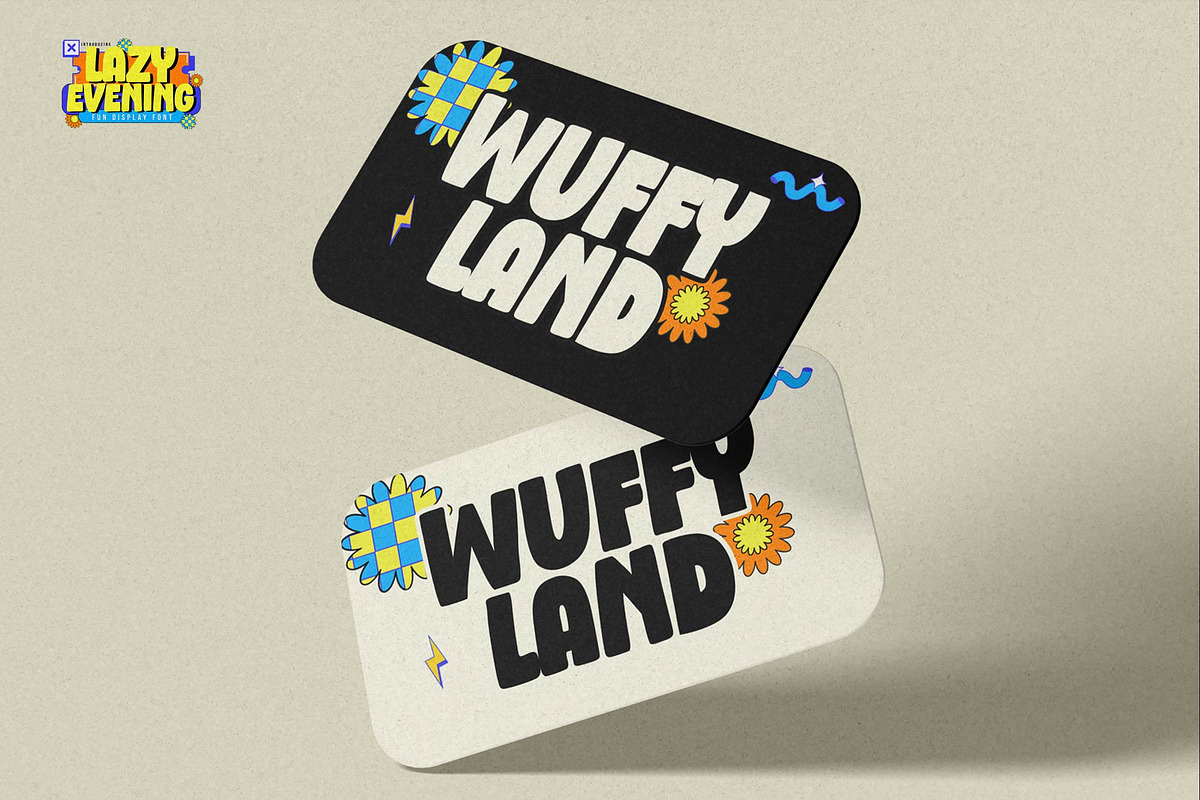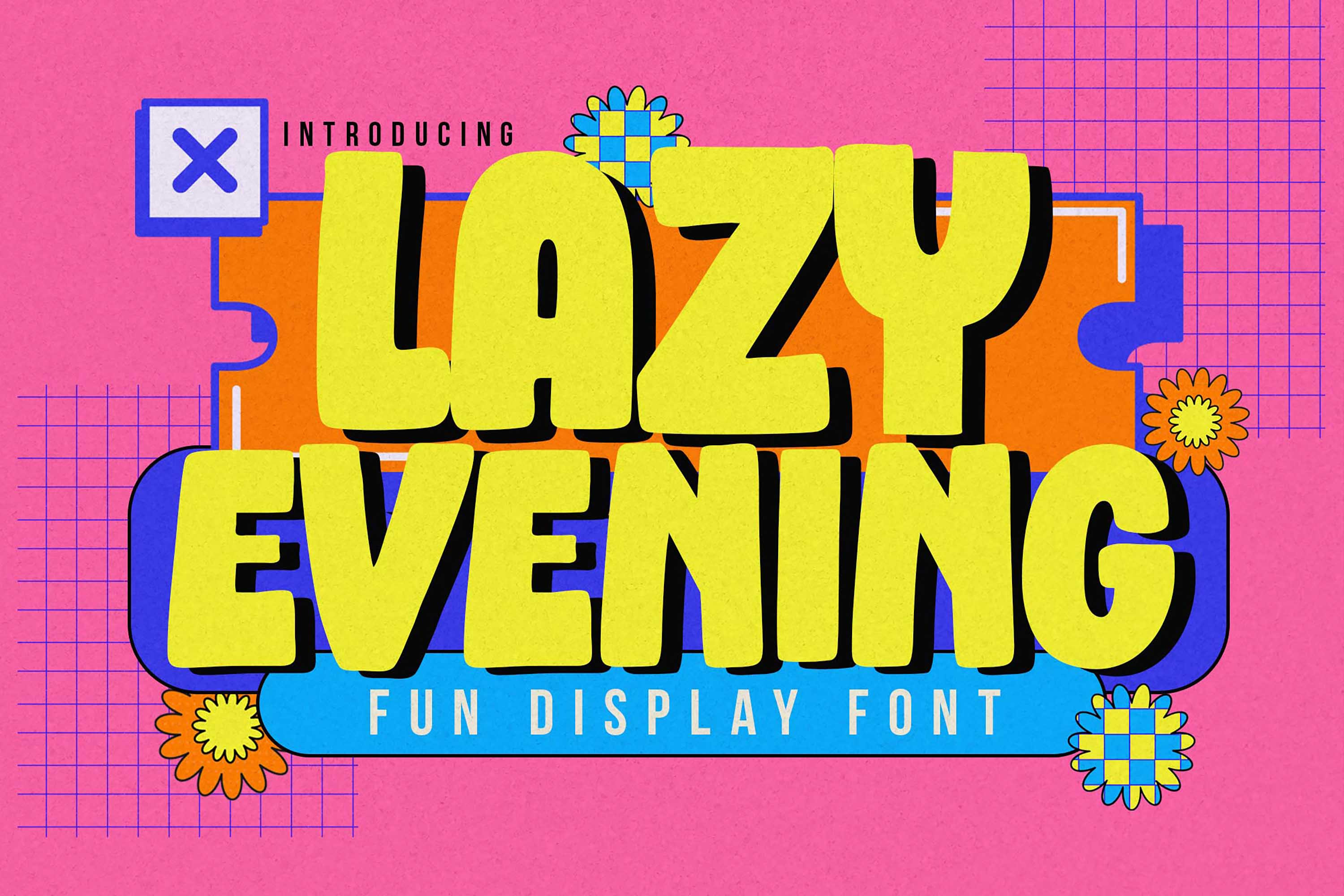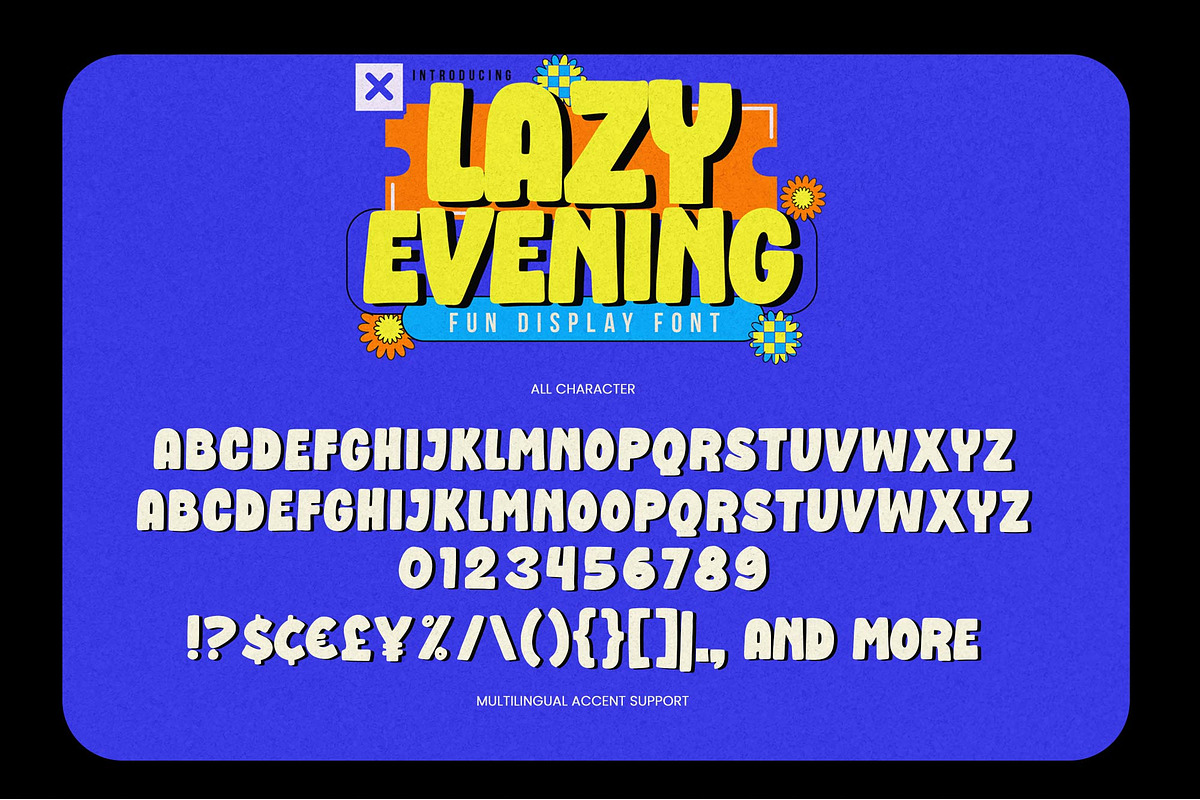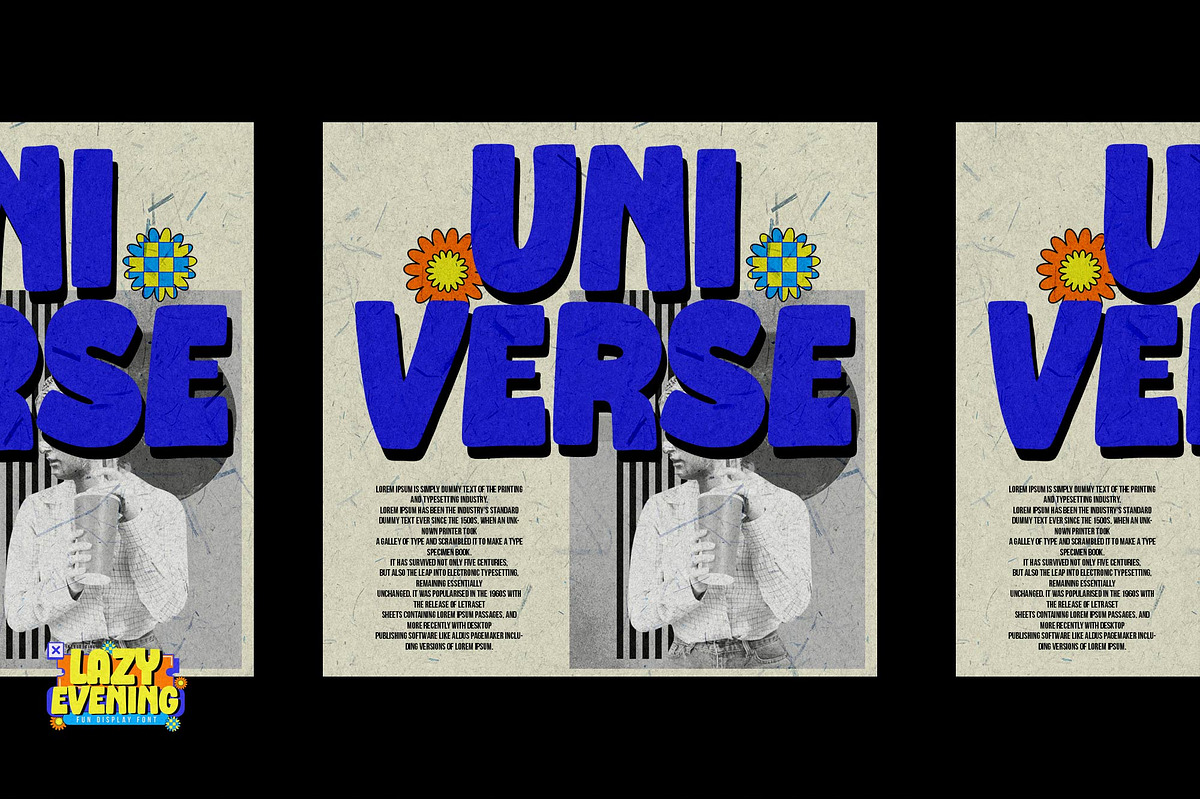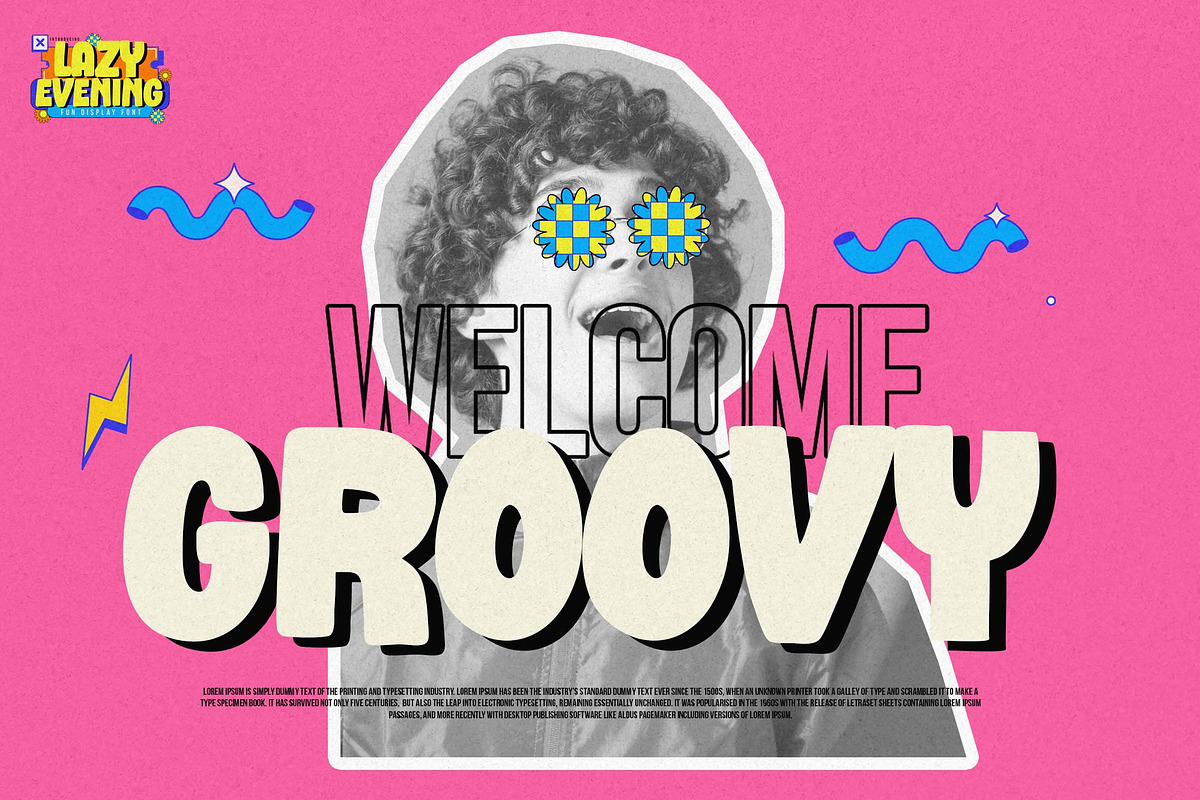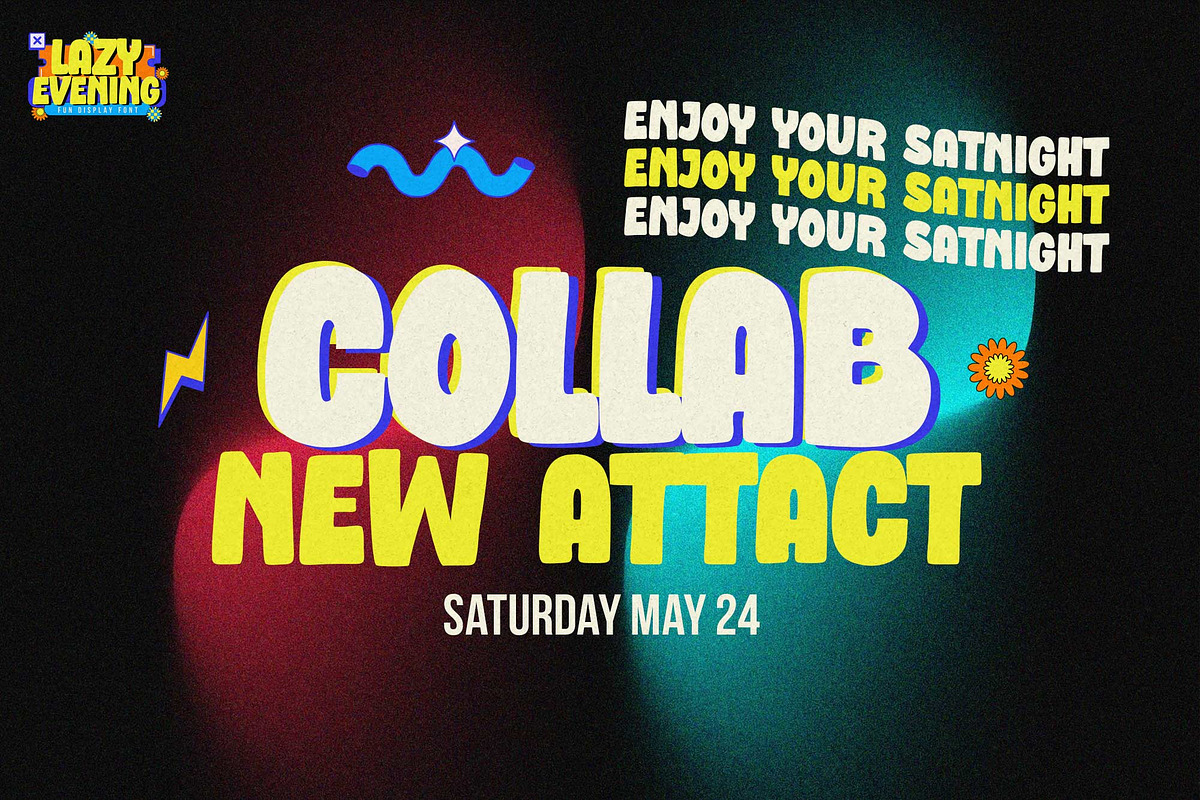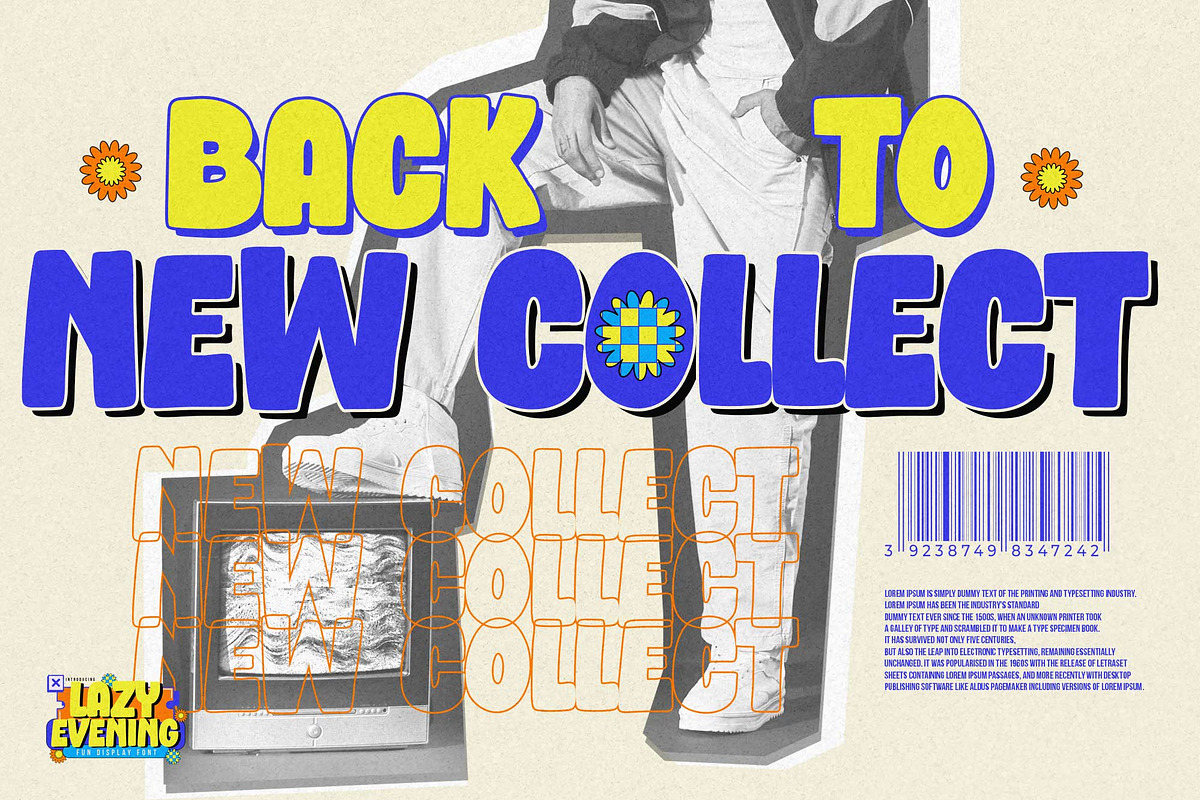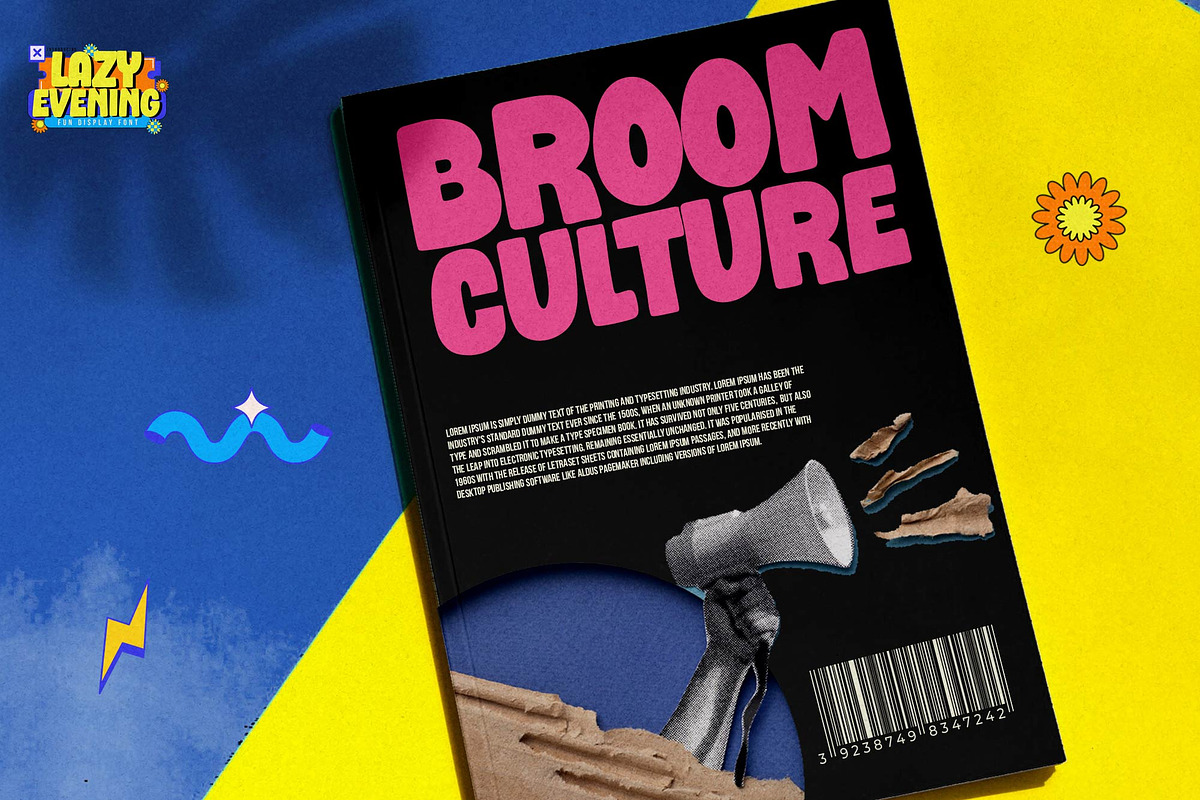
Lazy Evening - Fun Display Font
Hello Everyone, introduce our new product Font Lazy Evening This Is Fun Display Font.This is a Textured Natural Style and Fun style with a clear style. This font Lazy Evening is great for your next creative project such as logos, printed quotes, invitations, cards, product packaging, headers, Logotype, Letterhead, Poster, Design this font is great for your creative projects such as watermark on photography, and perfect for logos & branding, invitation,advertisements,product designs, stationery, wedding designs,label ,product packaging, special events or anything that need handwritting taste. That is has charming, authentic and relaxed characteristic more natural look to your text.